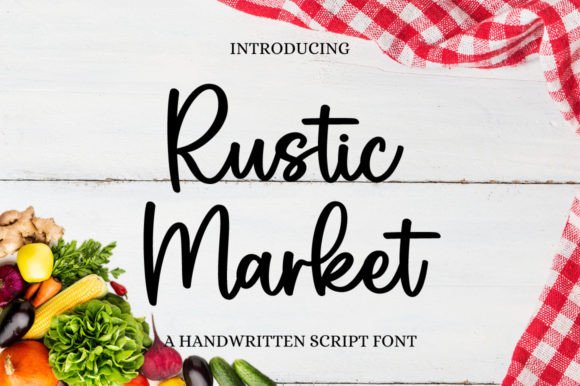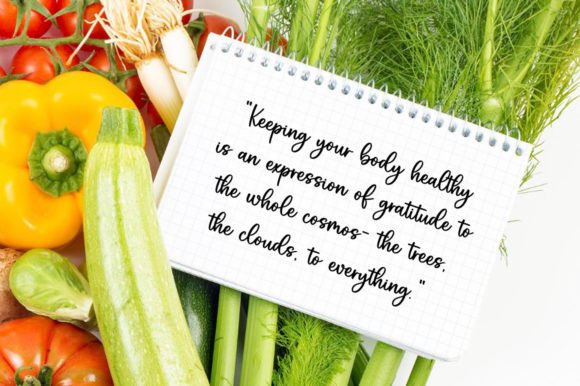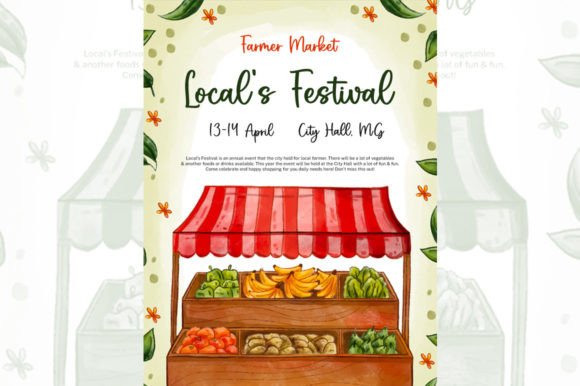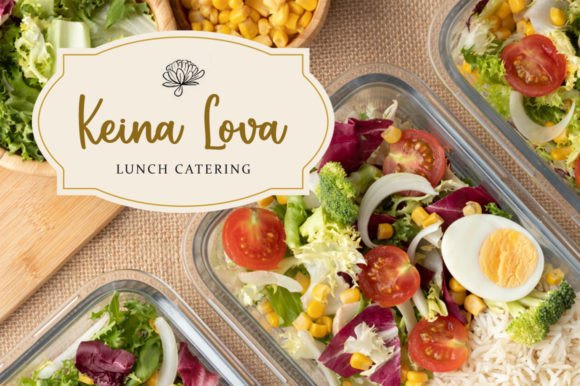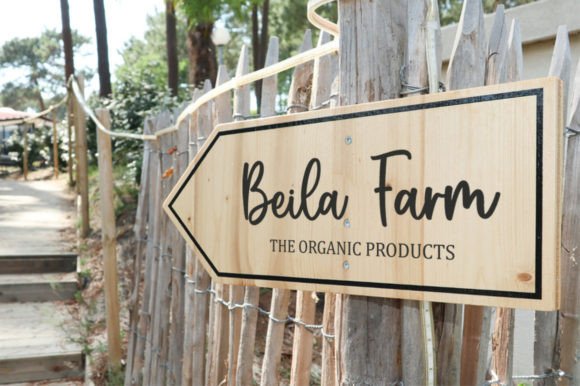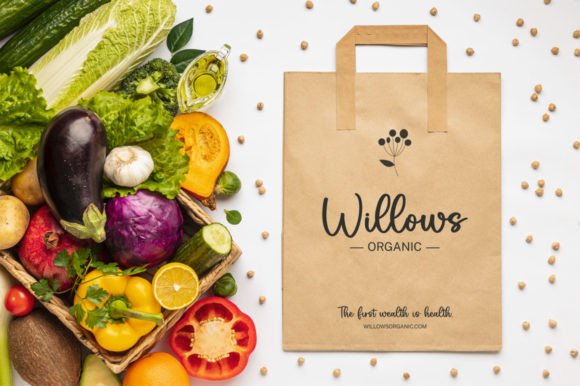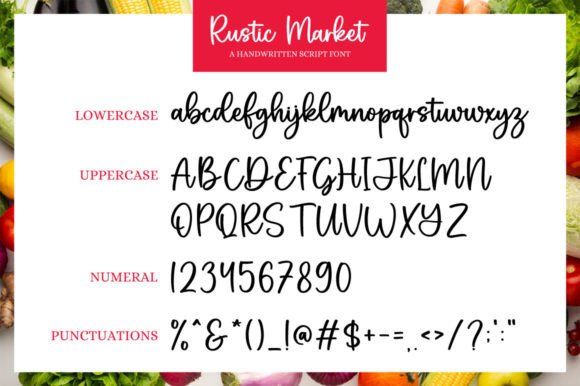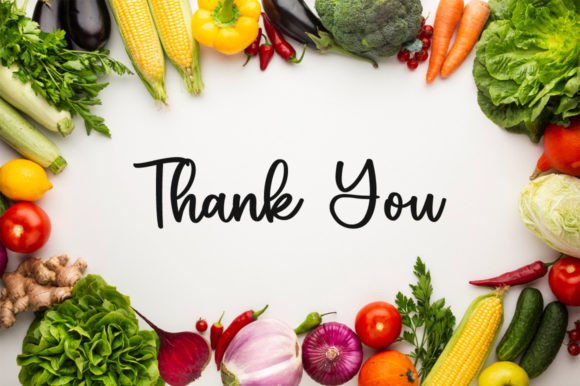
Rustic Market Font
About Rustic Market Font
Rustic Market is a delicate, elegant, and flowing handwritten font. It has beautiful and well-balanced characters and as a result, it matches a wide pool of designs.